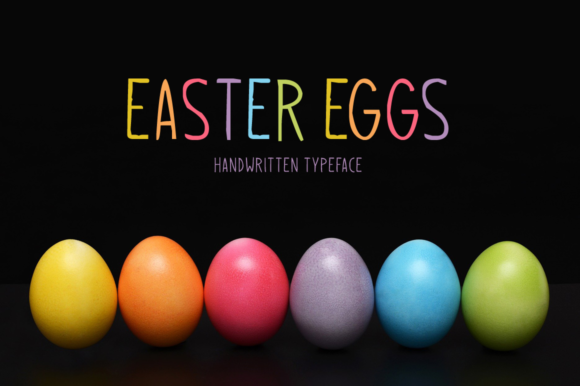
Elevate Your Spring Crafts with Easter Eggs Font
As I’m sure many of you can relate, there’s nothing quite like the feeling of rummaging through your craft stash on a chilly spring morning, searching for the perfect combination of colors and textures to bring your latest project to life. And then, just as the creative juices are flowing, you stumble upon that one special element that makes everything click – for me, it’s often a beautiful, whimsical font that captures the essence of the season.
Enter the Easter Eggs Font, a playful and cute display font that celebrates all things Easter. With its charming design and spring-inspired flair, this font is the perfect addition to any Easter-themed craft or design project. Whether you’re creating invitations, greeting cards, or DIY decorations, the Easter Eggs Font is sure to add a touch of whimsy and personality to your work.
Easter Eggs Font Key Features
- Unique Characteristics: Easter Eggs Font features a distinctive, hand-drawn design with intricate details, making it ideal for adding a touch of whimsy and personality to your projects.
Easter Eggs Font Review
I recently had the chance to dive into the Easter Eggs Font, and I must say, it’s a unique and quirky addition to any design project.
Fun and whimsical aesthetic that adds a playful touch to designs.
Highly customizable with a wide range of color options and font sizes.
Great for adding a touch of nostalgia or retro charm to modern designs.
Font may be too playful or distracting for more formal or professional designs.
Lack of flexibility in terms of font style or variations (e.g. italic, bold, etc.).
Not ideal for body text or large blocks of text, as it may be difficult to read.
The Easter Eggs Font is a great addition to any design project that calls for a playful and whimsical touch. While it may have some limitations, it’s a unique and fun font that’s sure to add a smile to your design. Just be sure to use it sparingly and in the right context.
Use the Easter Eggs Font for designs that require a playful and whimsical touch.
Combine the font with bright colors and fun graphics to create eye-catching designs.
Experiment with different font sizes and styles to add visual interest to your design.
The Easter Eggs Font is ideal for:
Children’s party invitations and decorations.
Fun and playful social media posts.
Whimsical greeting cards and gift tags.